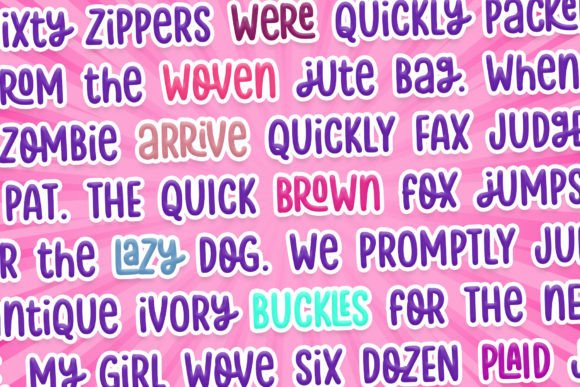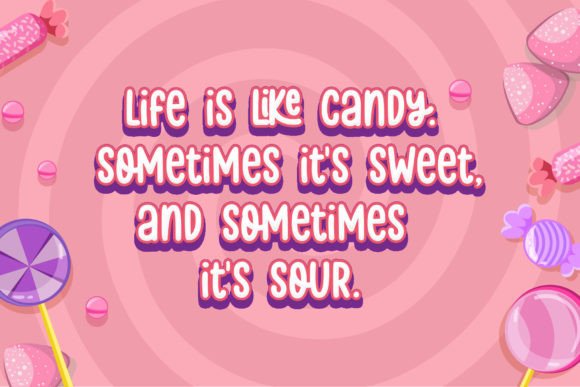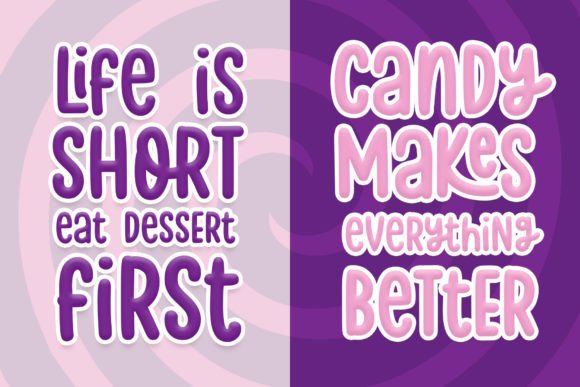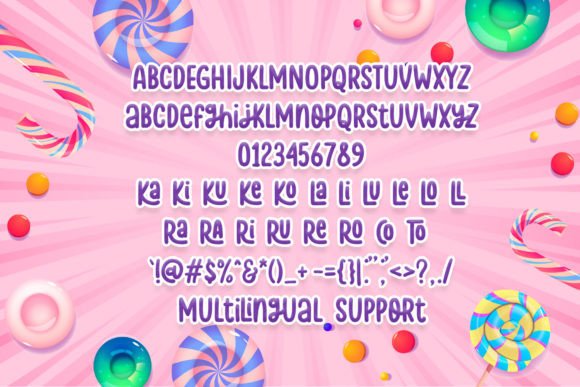
Introduction to Rolly Polly Font
Who hasn’t been inspired by a quirky, hand-drawn illustration or a whimsical design element that adds a touch of magic to their creative project? For designers and crafters alike, finding the perfect font can be the difference between a good design and a great one. That’s where the Rolly Polly Font comes in – a delightful display font that’s sure to make your days a little sweeter.
With its playful, hand-crafted feel, the Rolly Polly Font is the perfect addition to any design or craft project. Whether you’re working on a digital design with a transparent background or creating a physical craft that requires a high-quality font, this font is a valuable resource that’s sure to impress. And the best part? It’s available for free download, making it an accessible design resource for designers of all levels.
Key Features of Rolly Polly Font
- Unique, playful design ideal for creative projects and children’s content.
- Includes a transparent background for seamless integration into any design.
- Perfect for use in logos, icons, and other graphic design elements where a whimsical touch is desired.
Honest Review: Rolly Polly Font
I recently had the chance to work with the Rolly Polly Font on a creative project and I must say, it was a pleasant experience. This font is a great design resource that offers a unique style and versatility.
One of the standout features of the Rolly Polly Font is its transparent background, which makes it perfect for designers who need a high-quality font without any unnecessary clutter. The font is also free to download, which is a definite plus for those on a budget or working on a tight deadline.
Here are some of the things that work well with the Rolly Polly Font:
- Unique and creative style that sets it apart from other fonts
- High-quality design that is perfect for a variety of projects
- Transparent background makes it easy to customize
- May not be suitable for all types of projects (e.g. formal or professional)
- Limited character set, which may cause issues with certain words or phrases
- Not all platforms may support the font’s transparent background
Overall, I was impressed with the Rolly Polly Font and would definitely recommend it to designers looking for a high-quality, free design resource. While it may have a few limitations, the benefits far outweigh the drawbacks.
How to Use Rolly Polly Font
The Rolly Polly Font is a versatile design resource ideal for creative projects requiring a unique and eye-catching style. This high-quality font is available for free download and features a transparent background, making it easy to customize and integrate into various design elements.
Tips for Getting the Most Out of Rolly Polly Font
For optimal results, use the Rolly Polly Font in conjunction with a contrasting background color, experiment with different font sizes and colors to create visual interest, and consider combining it with other design elements to add depth and texture to your design.
Common Use Cases for Rolly Polly Font
The Rolly Polly Font is suitable for a variety of design projects, including social media graphics, blog posts, flyers, and presentations. Its unique style and transparent background make it an ideal choice for creative professionals looking to add a touch of personality to their designs.